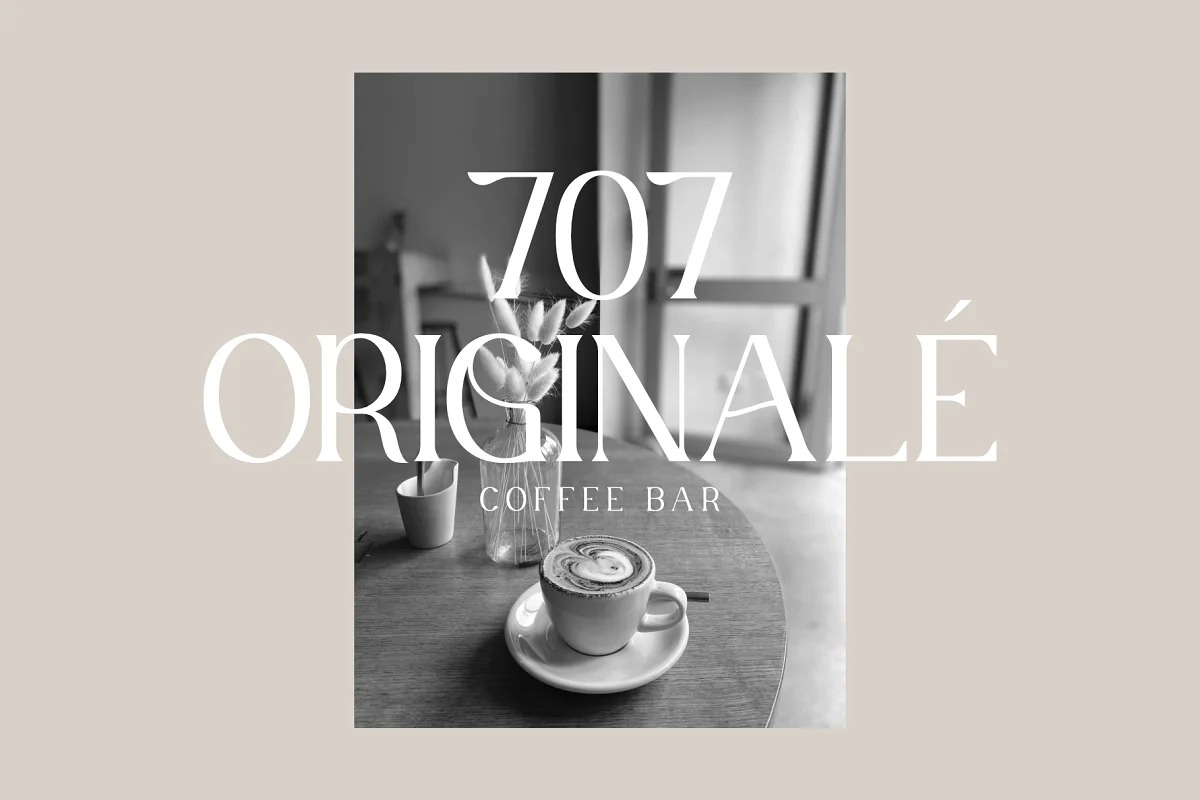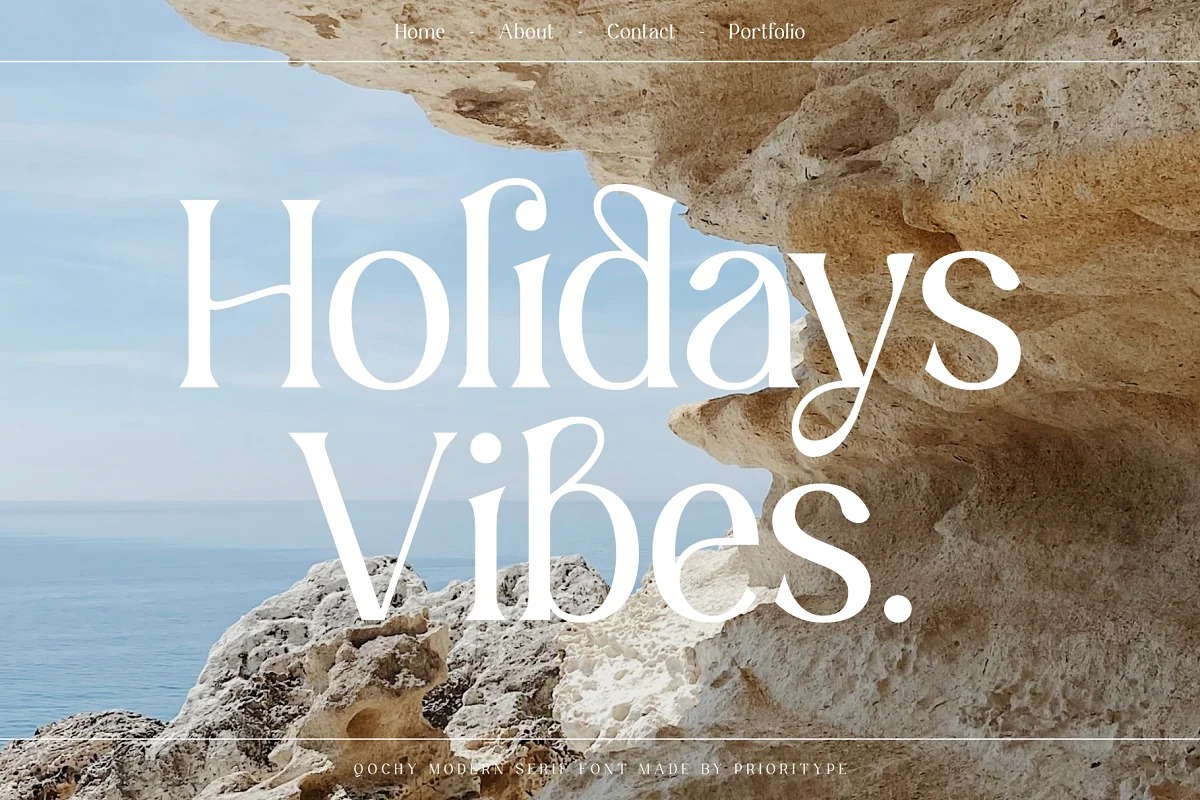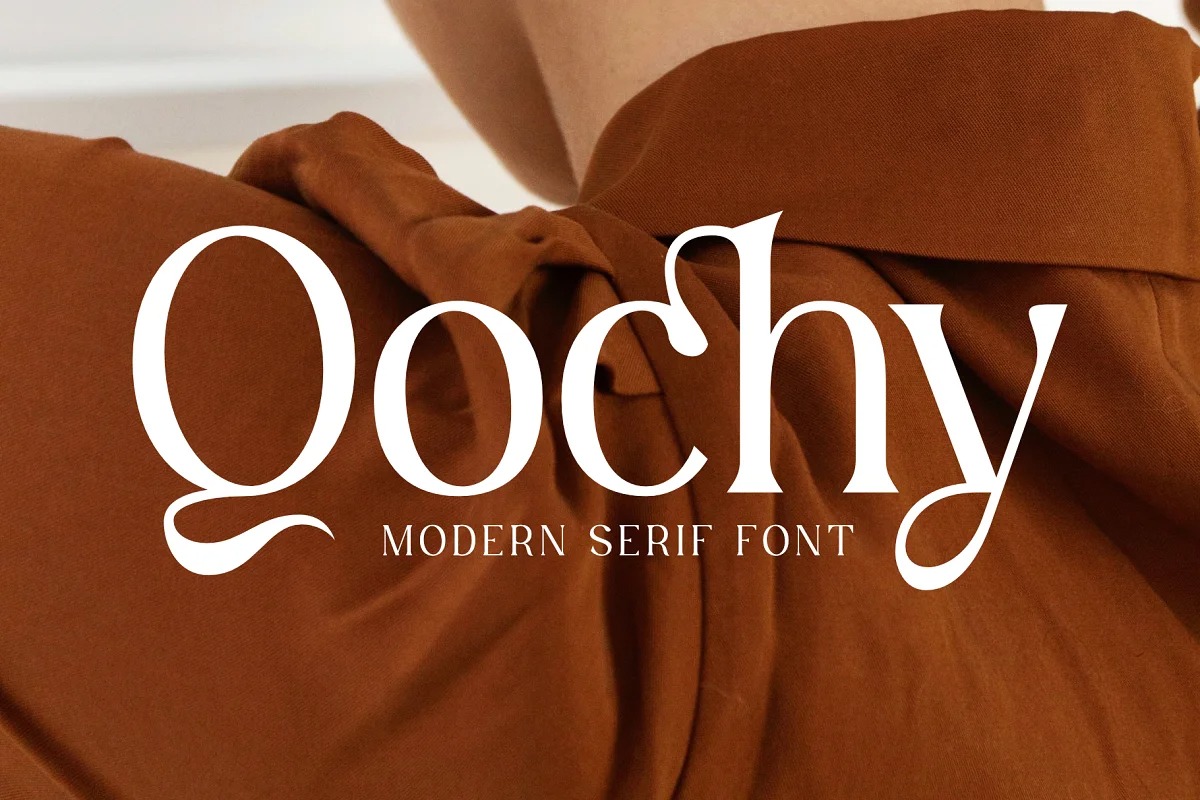
Qochy Serif Font
This typeface designed by Prioritype is a bold, modern and cool serif font. It is defined by smooth curves and is perfect for fashion branding or editorial designs. It is suitable for logo design, branding, magazine covers, landing pages, Instagram posts and so on.